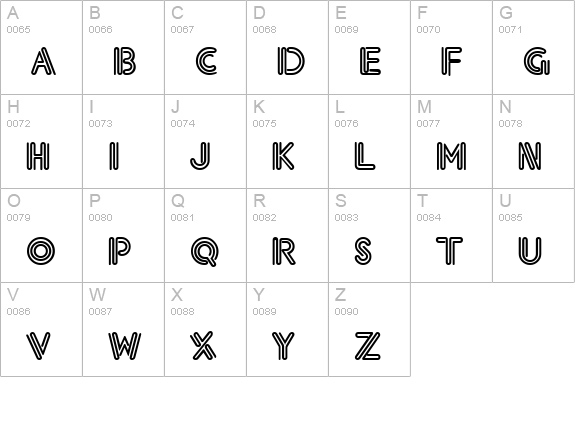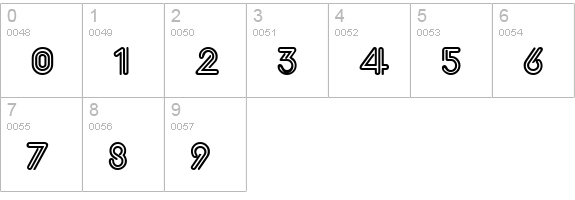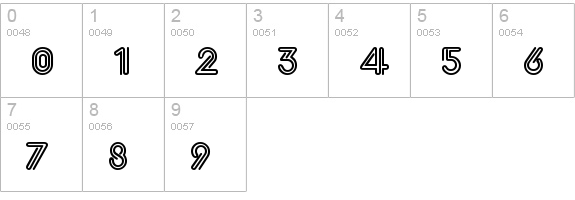
NeonThick Regular is the standard, neutral variant in the NeonThick typeface family \xE2\x80\x94 well suited to general body text, paragraphs, and standard typographic work.
NeonThick Regular font is a vibrant and eye-catching typeface that exudes a modern and futuristic aesthetic. Its bold and sleek design makes it perfect for various design projects, from posters to logos to website headers. The font's thick neon-like strokes give off a sense of energy and dynamism, making it ideal for grabbing attention and making a bold statement. Best of all, NeonThick Regular font is available for free download at FontsMarket.com. You can easily access this versatile font and incorporate it into your designs without any cost. Add a touch of excitement and modernity to your projects with NeonThick Regular font and watch as your designs come to life with its striking visual appeal.